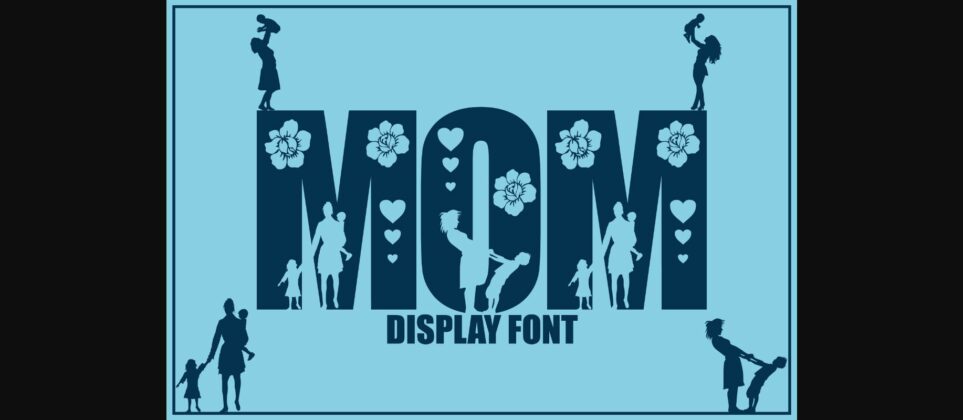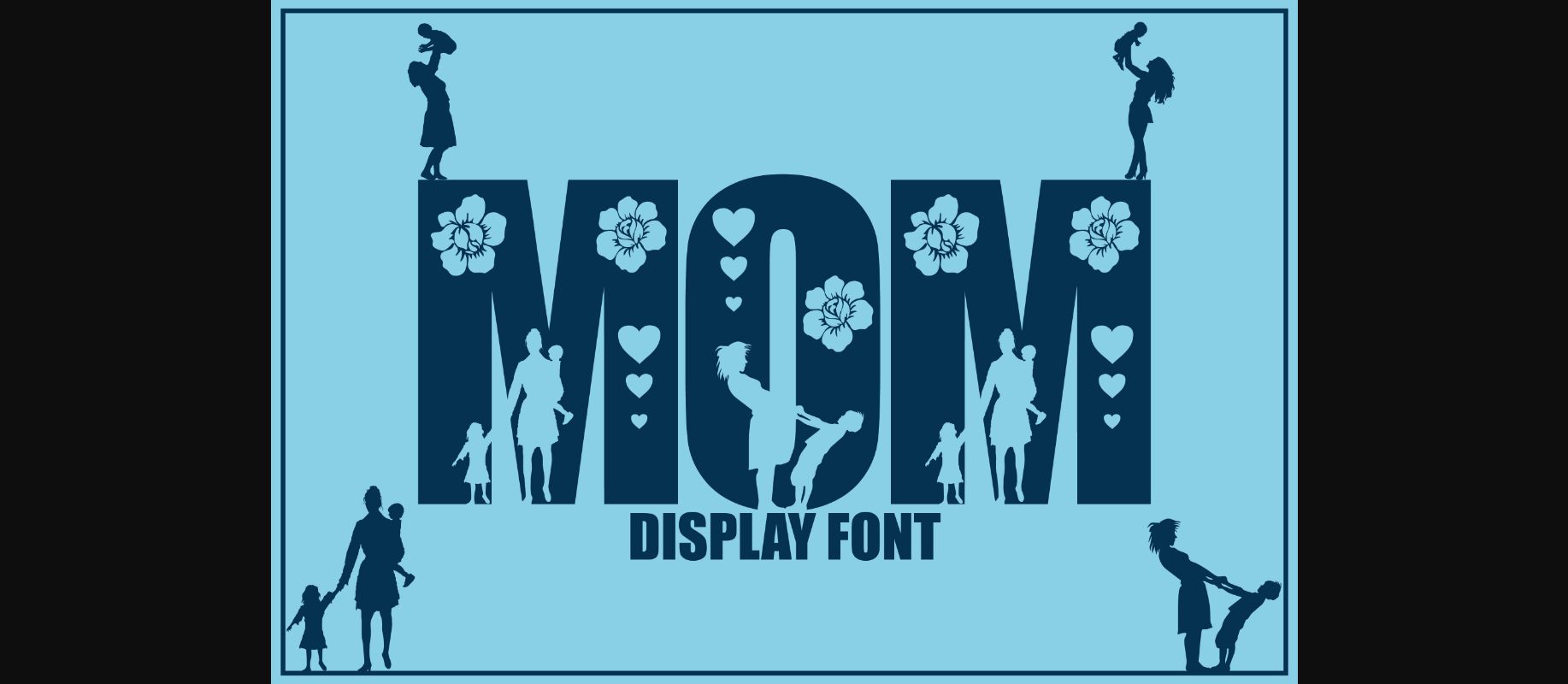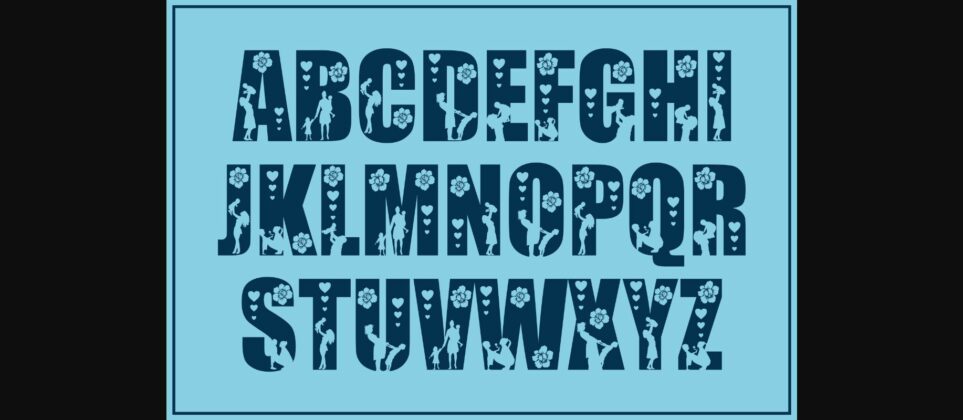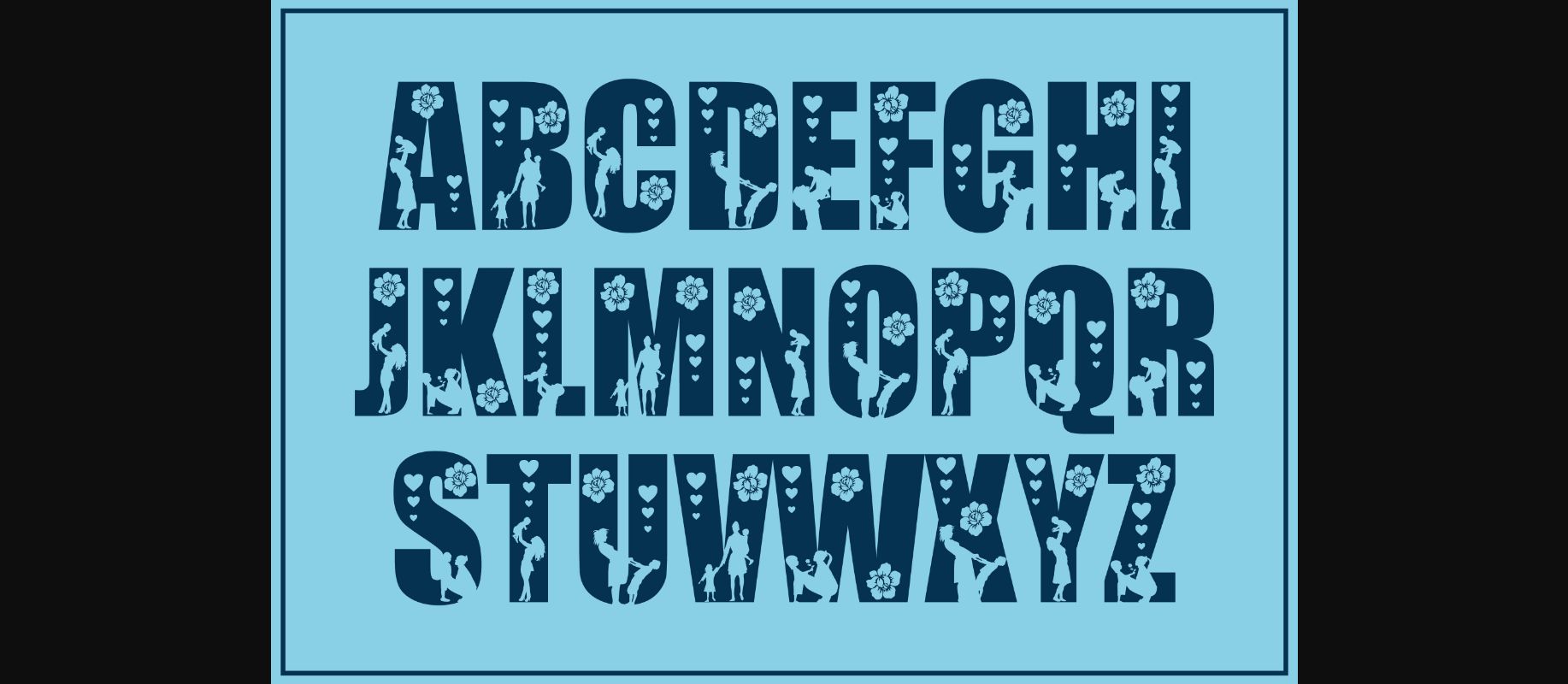
About Mom Font
Mom is a fun and cute decorative font. It is perfectly suitable for any design or crafty idea! Add it confidently to your projects and you will love the results!